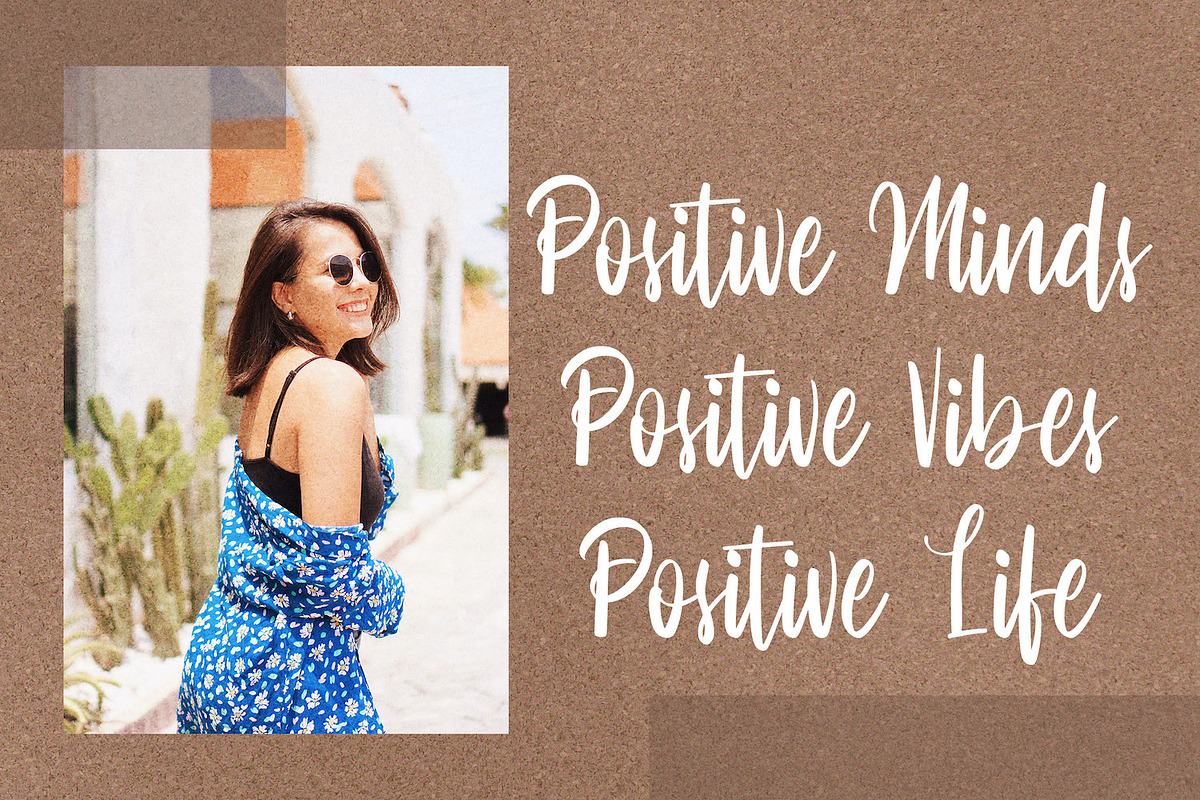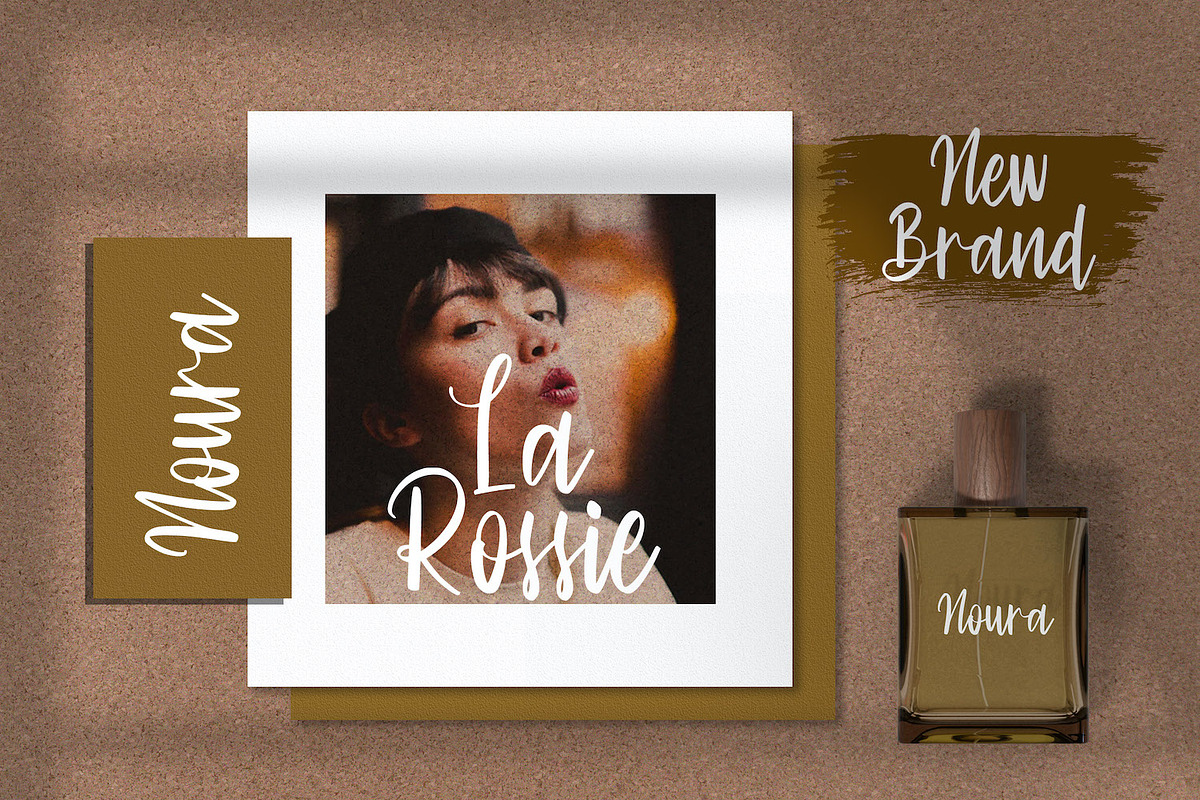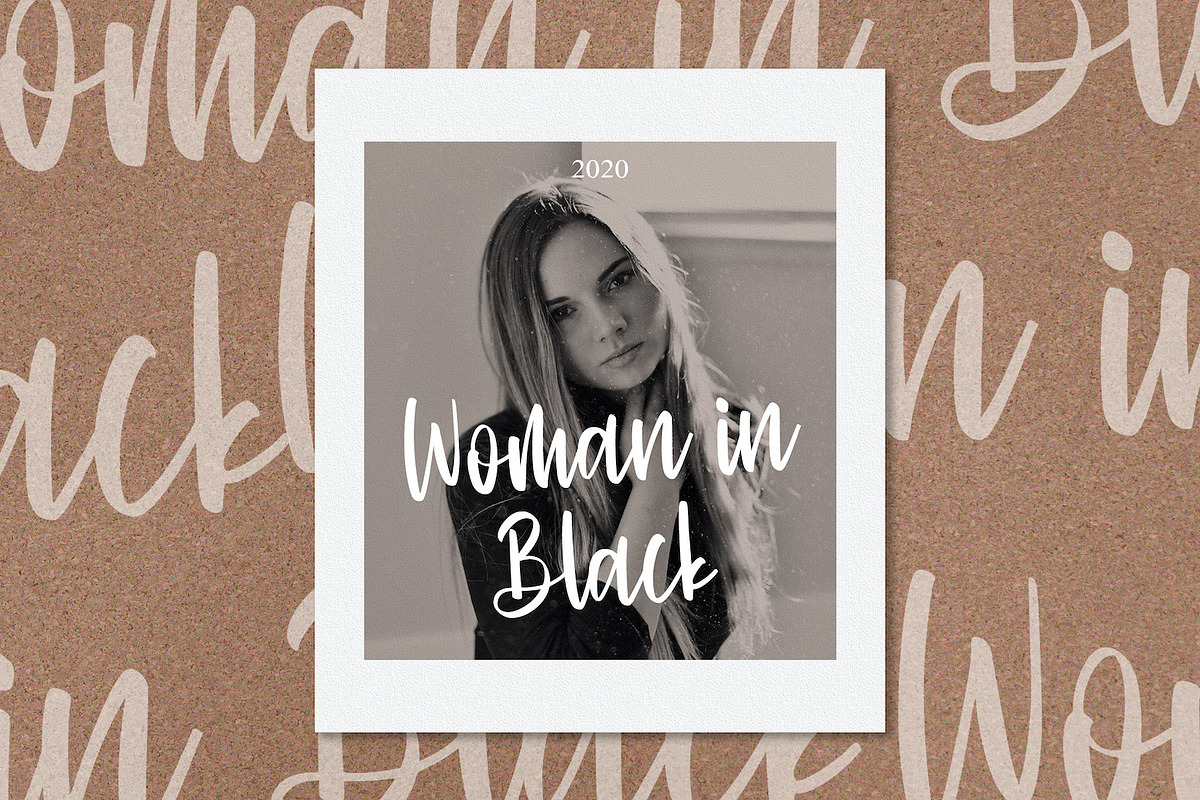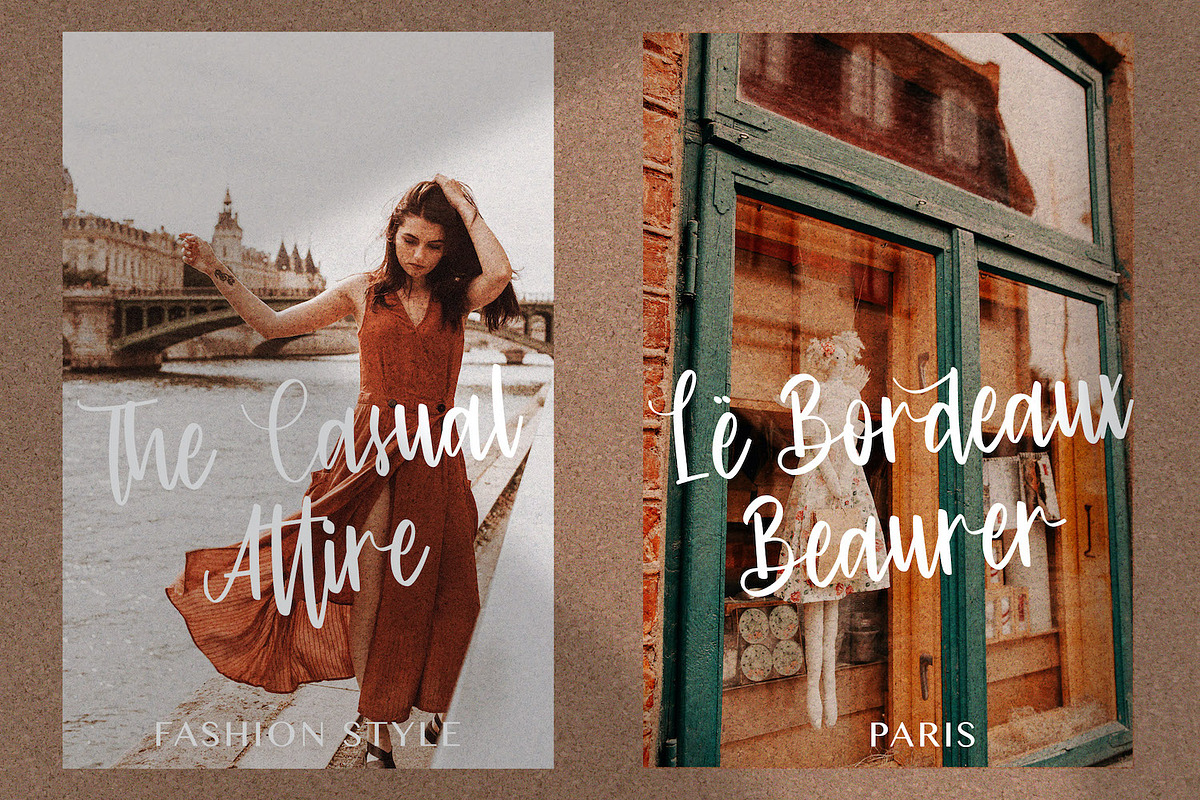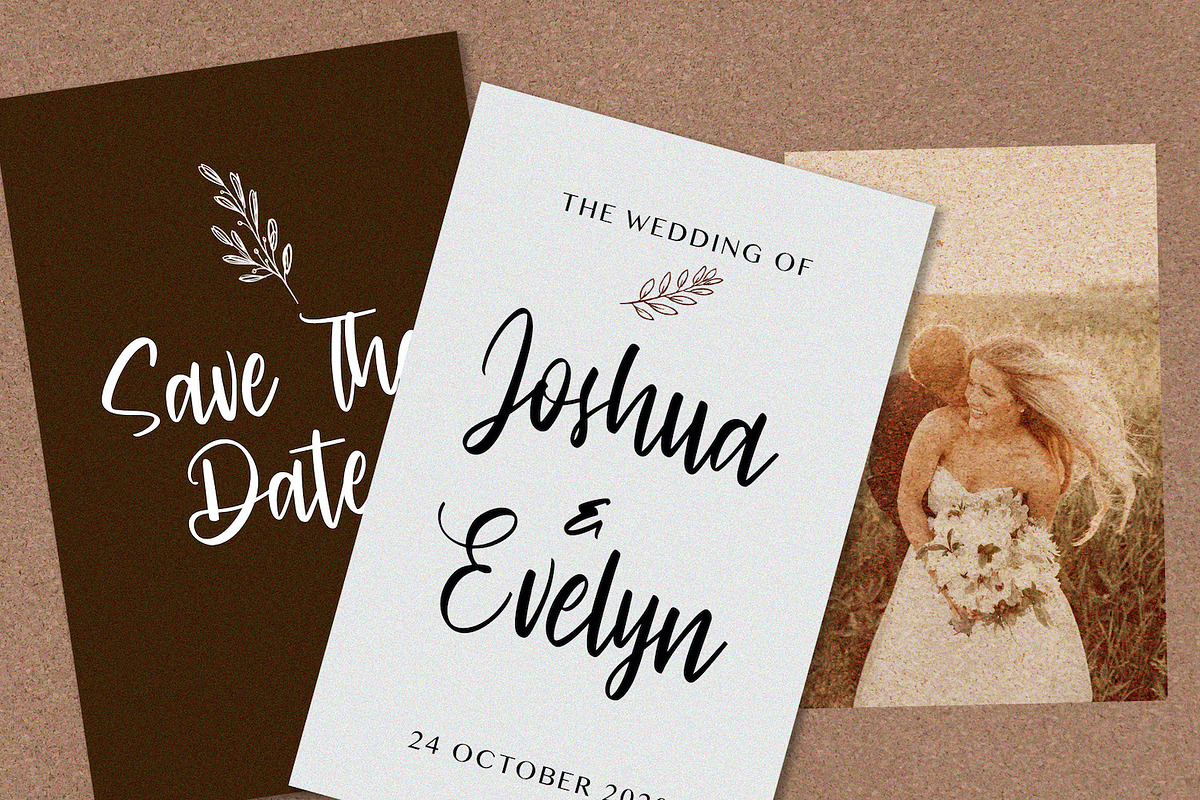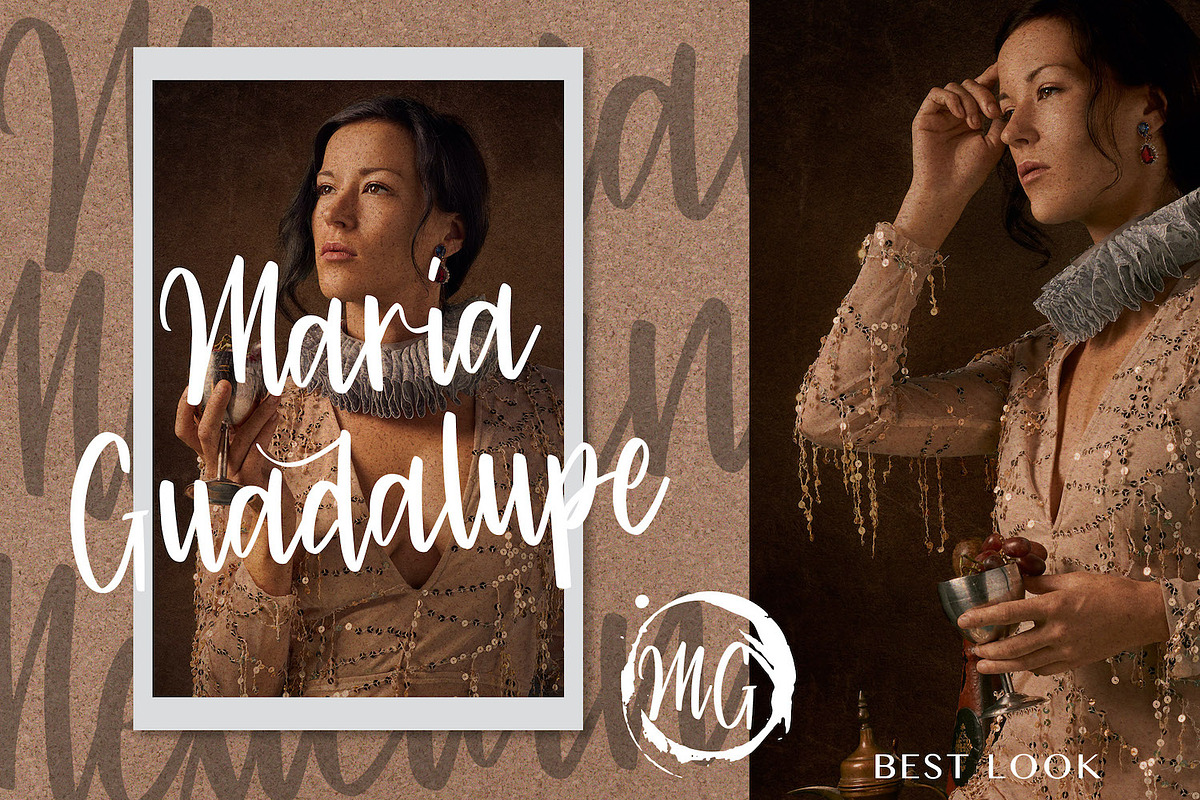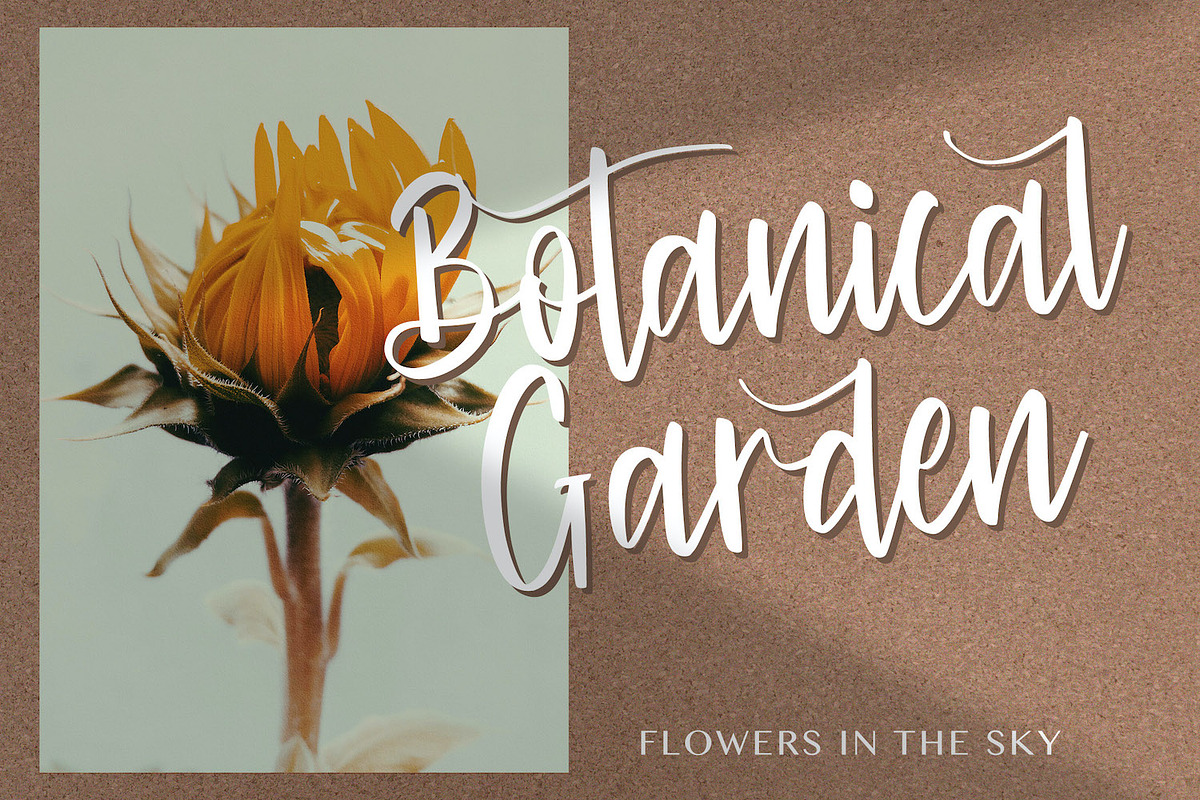
Cinthya Einzberg - Handwritten Font
Introducing Cinthya Einzberg - Handwritten Font
Cinthya Einzberg is a new handwritten font, created with the help of a beautiful brush pen. Fall in love with its incredibly versatile style and use it to create gorgeous wedding invitations, beautiful stationary art, eye-catching social media posts, and much more!
Why Cinthya Einzberg - Handwritten Font is worth a look
Cinthya Einzberg - Handwritten Font by StringLabs fits naturally into Branding, posters, packaging, typography.